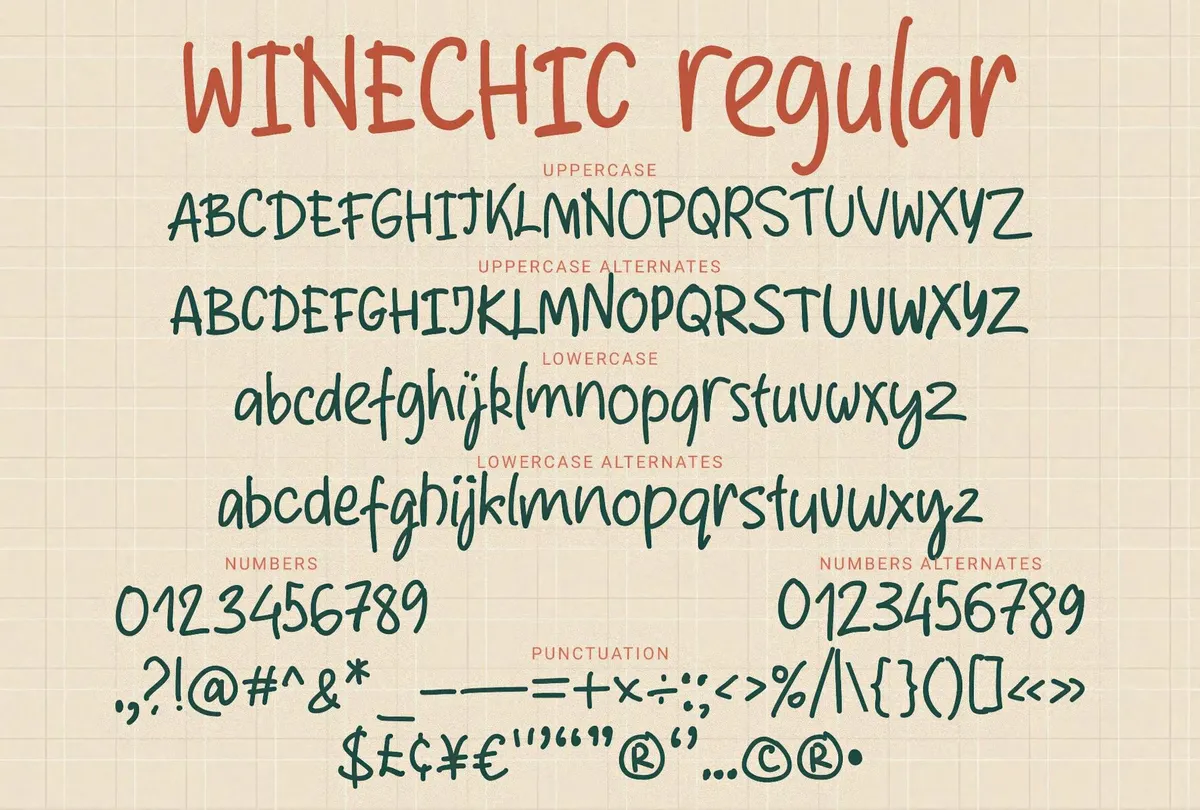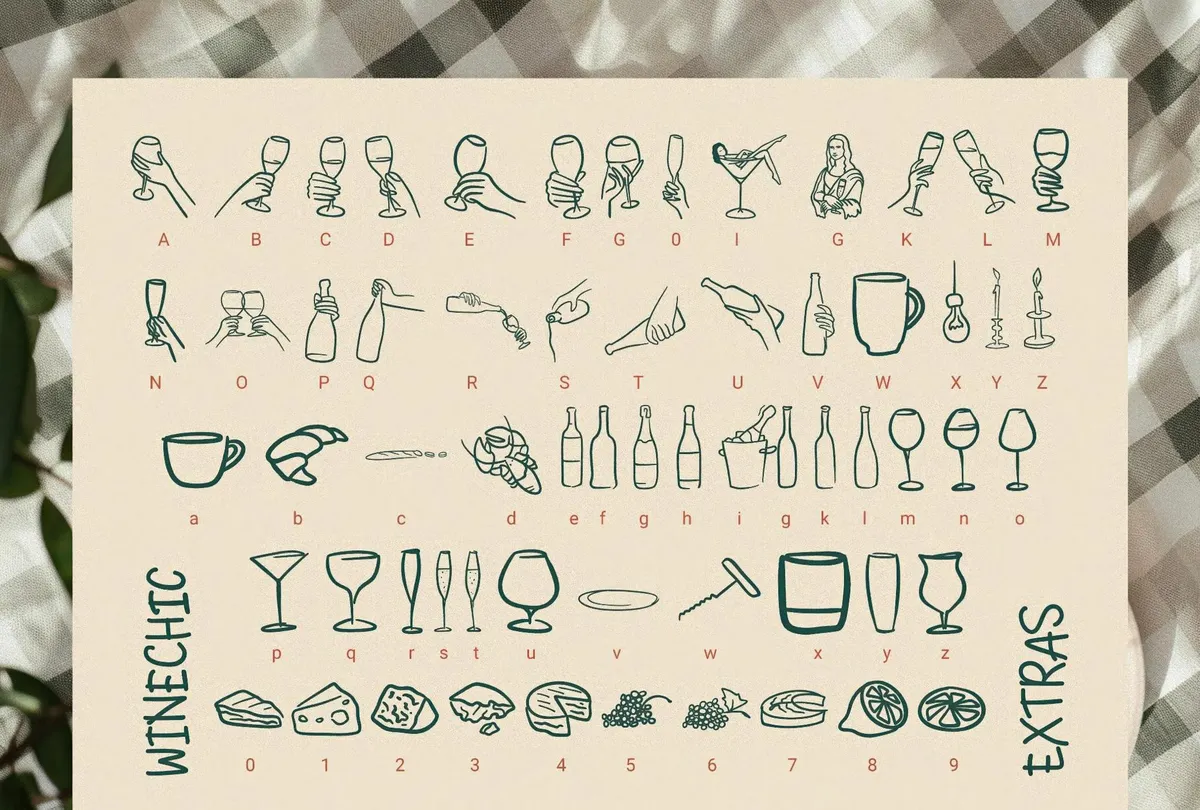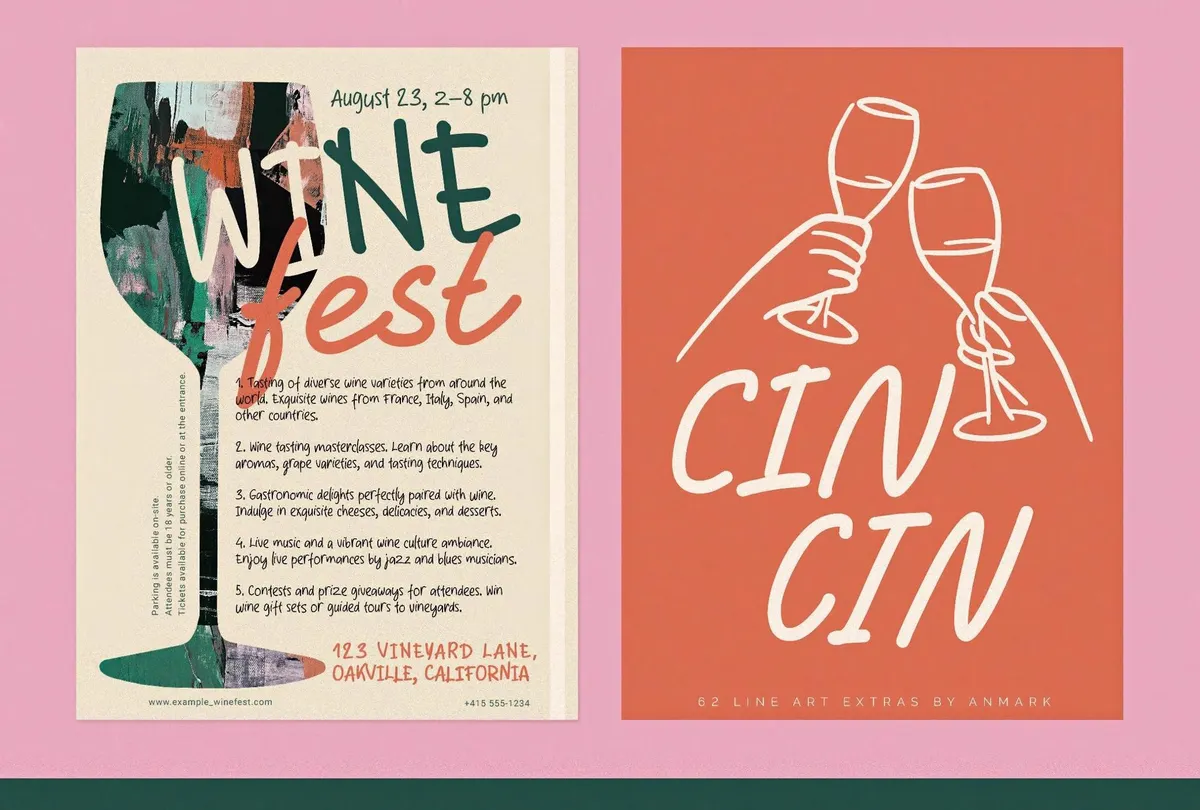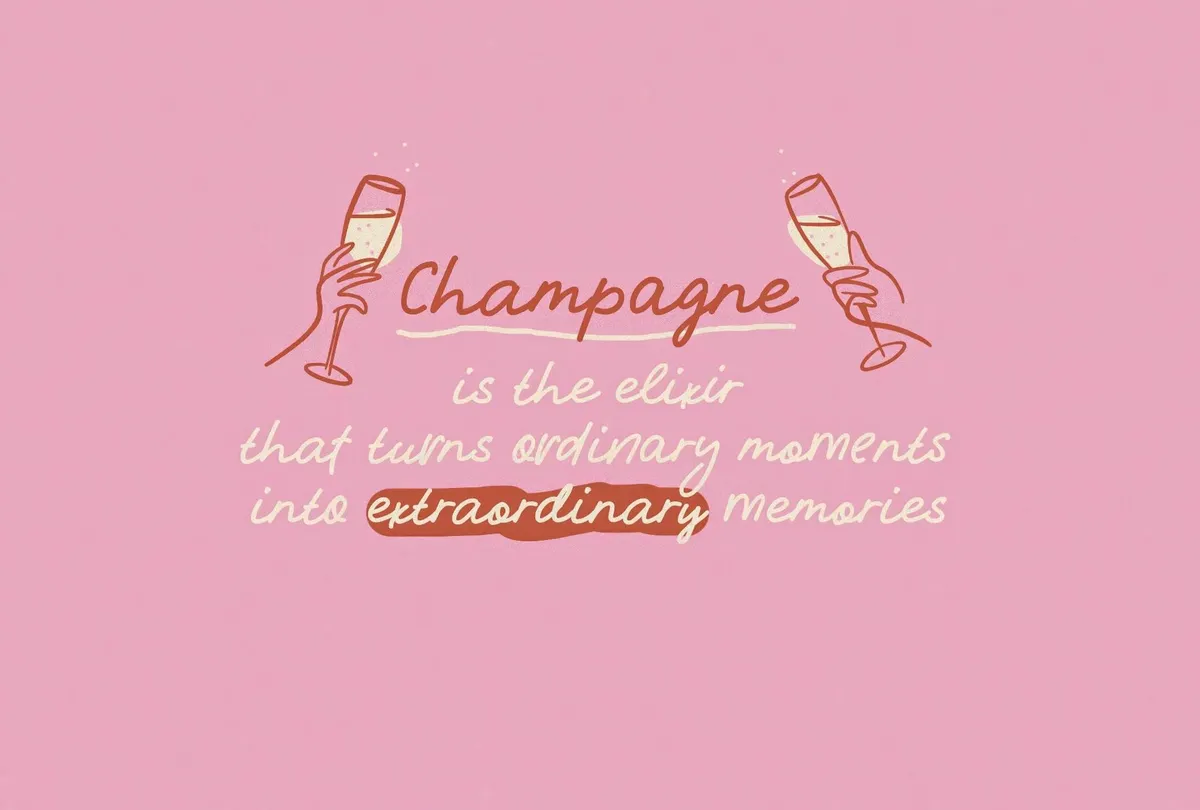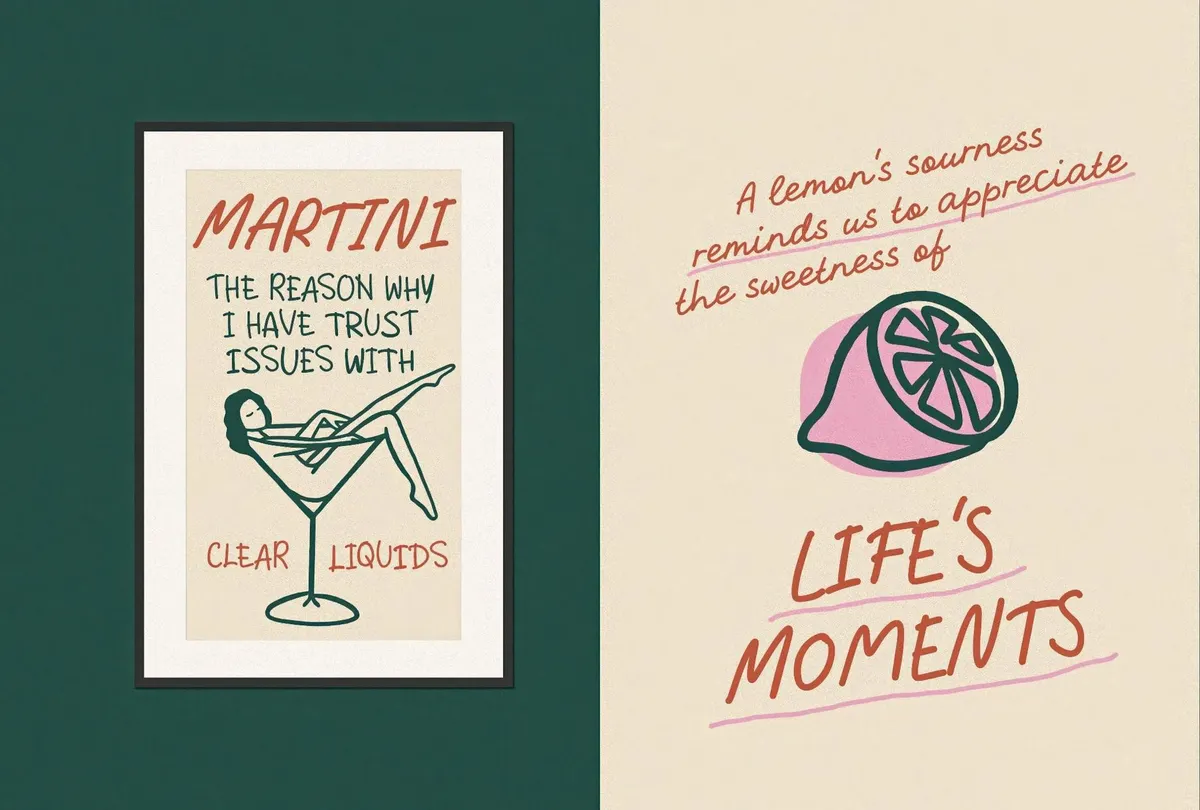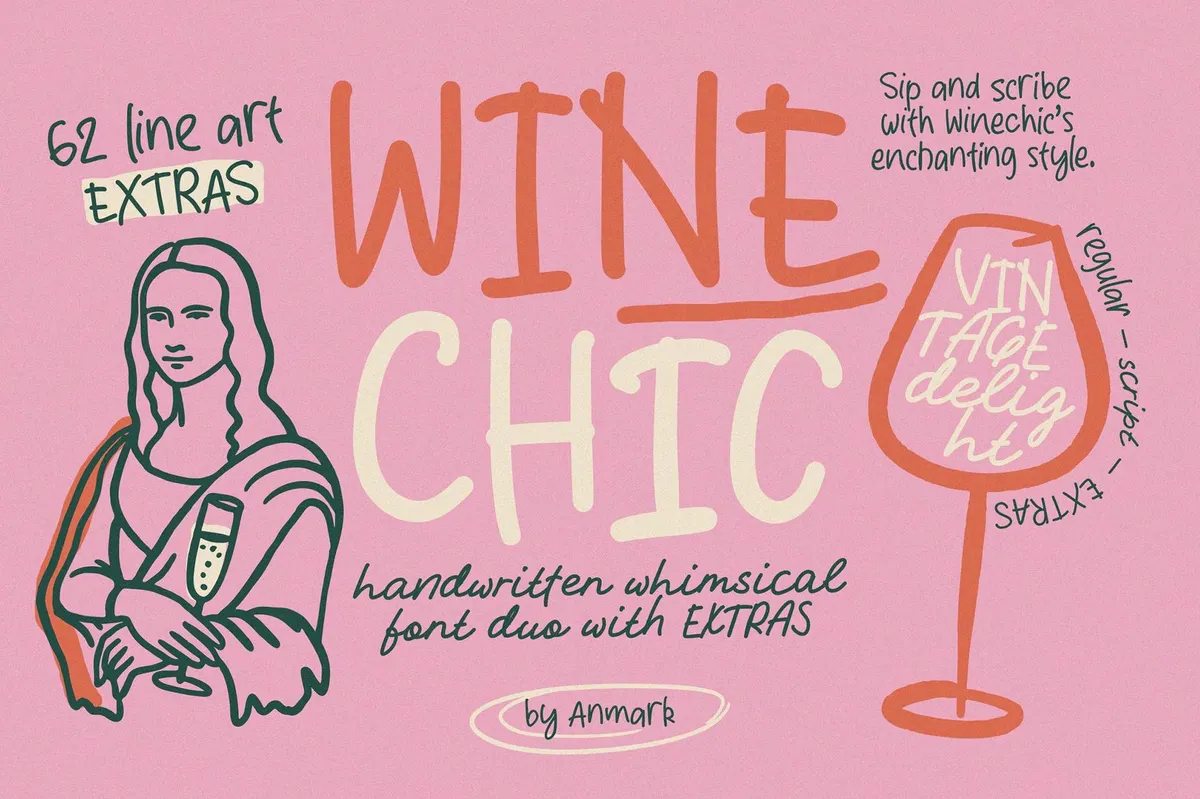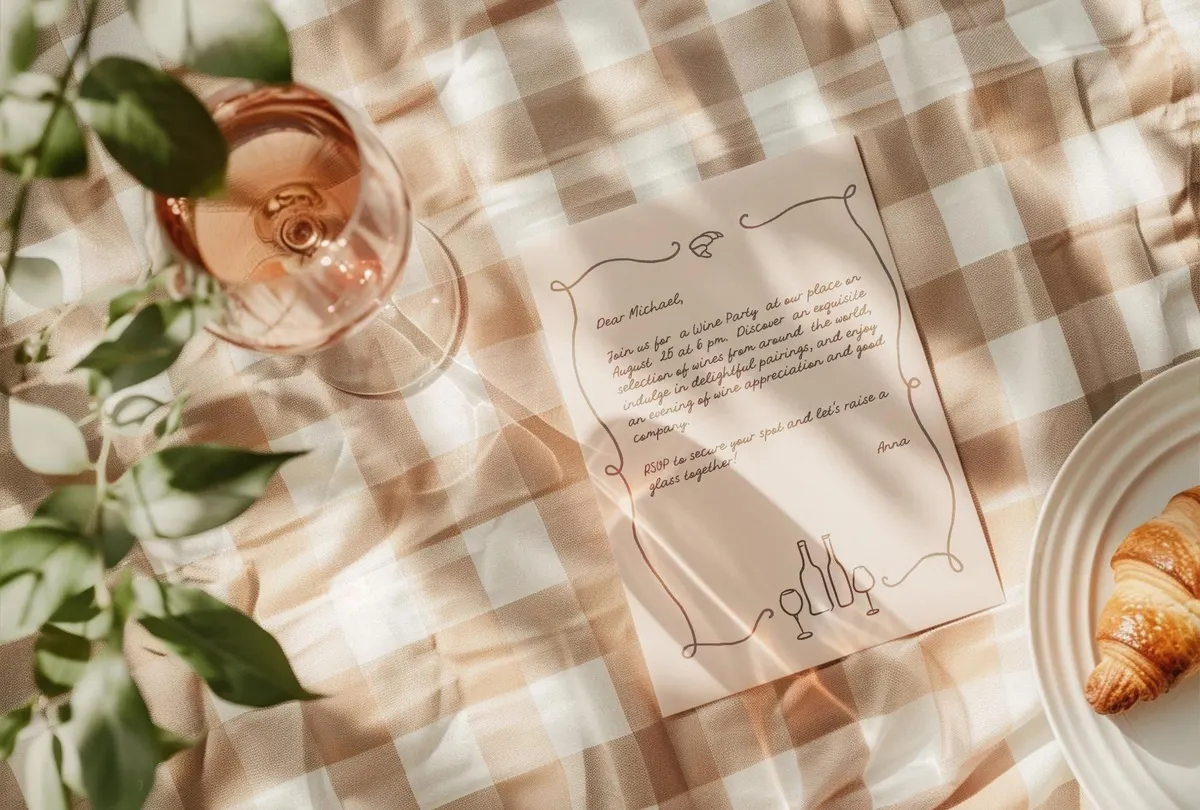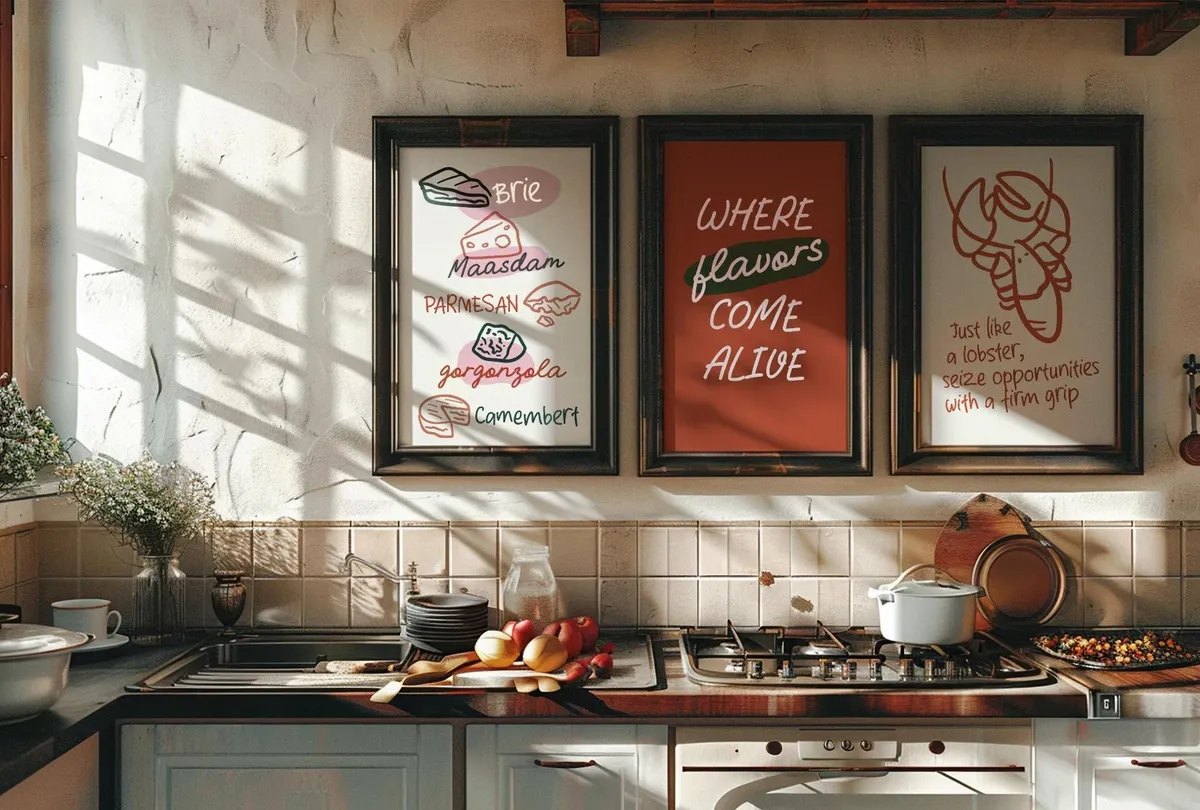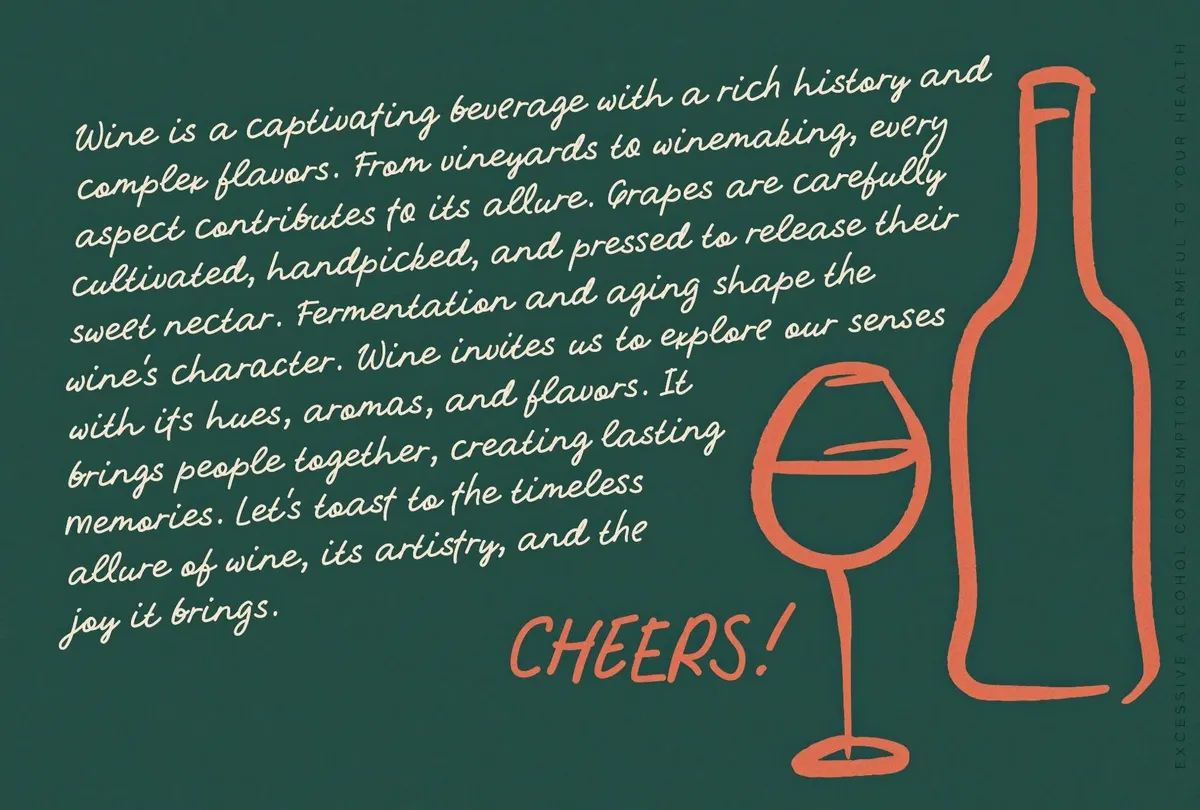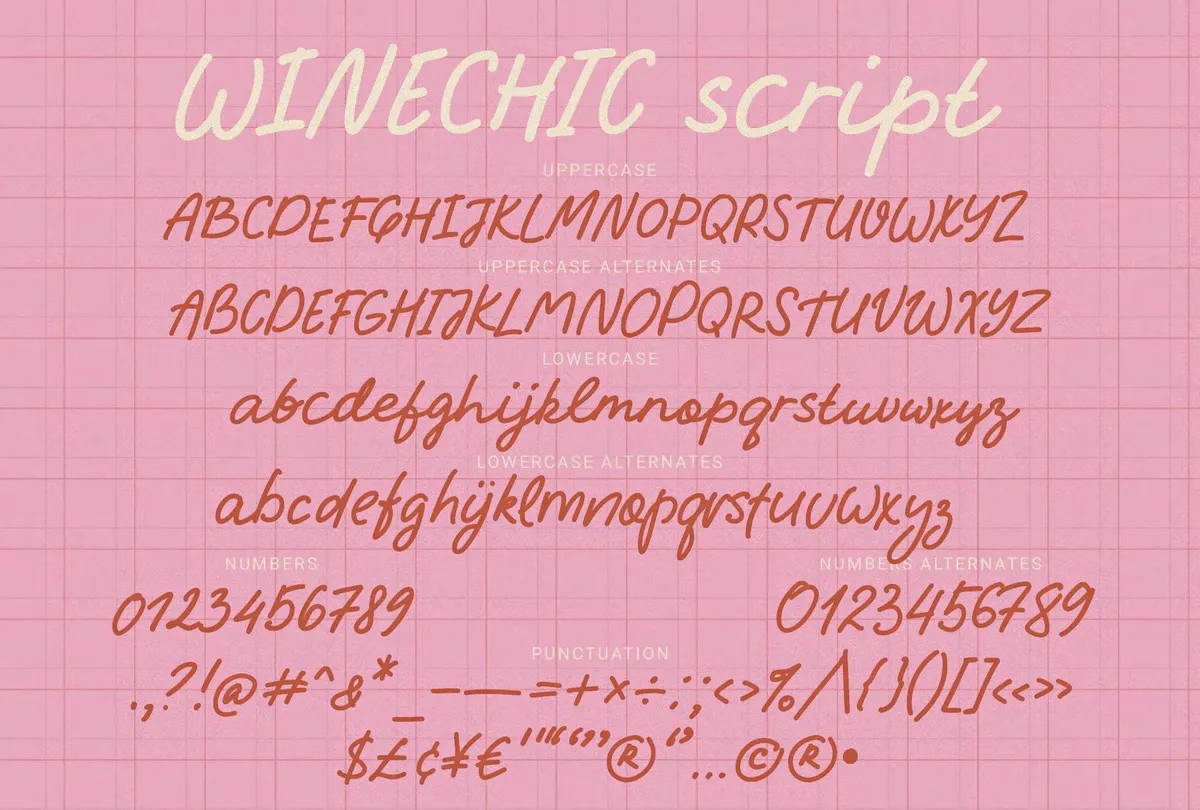
WineChic — Handwriting Font & Extras
Winechic
Extras
In vino veritas, and the veritas is that there's no better font for wineries, bars, cafes, bakeries, artisanal shops, and alcohol labels than WineChic. It combines pretty French recklessness and the charm of simple handwriting. WineChic has three styles: Regular, Script, and Extras. Each contains a full range of letters and number alternatives. The Regular style has clean and straightforward letterforms, whereas the Script style captures the essence of handcrafted artistry with its curves and delicate strokes. And then there's the Extras style, packed with line art illustrations inspired by winemaking, from grapevines and wine bottles to corkscrews and glasses.